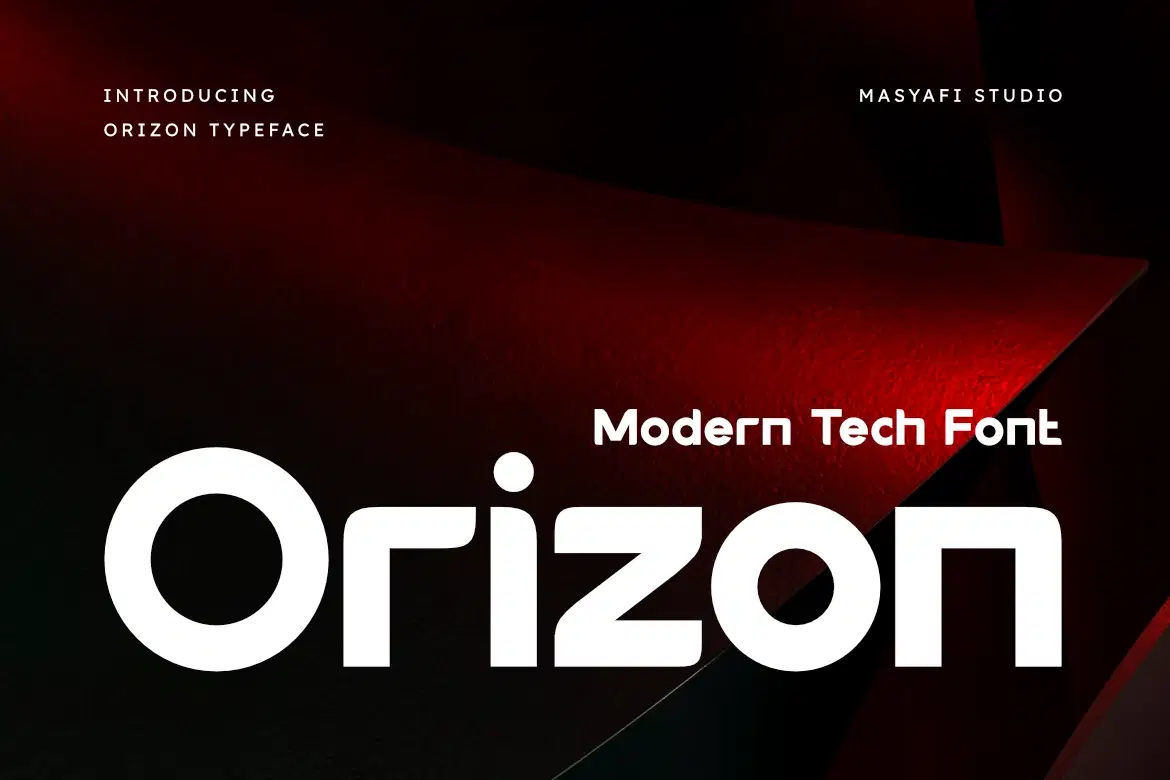
Introduce Orizon, a sleek and modern typeface designed for the digital age. Featuring wide geometric proportions and smooth rounded edges, this font strikes the perfect balance between high-tech innovation and approachable design.
Orizon is highly versatile, making it an excellent choice for tech startups, automotive branding, app interfaces, and futuristic headlines. Its clean structures ensure maximum legibility across both print and digital platforms.
Modern, clean, and minimalist aesthetic.
Wide geometric letterforms with rounded corners.
Optimized for branding, logos, and UI/UX design.
Accessible and professional look.